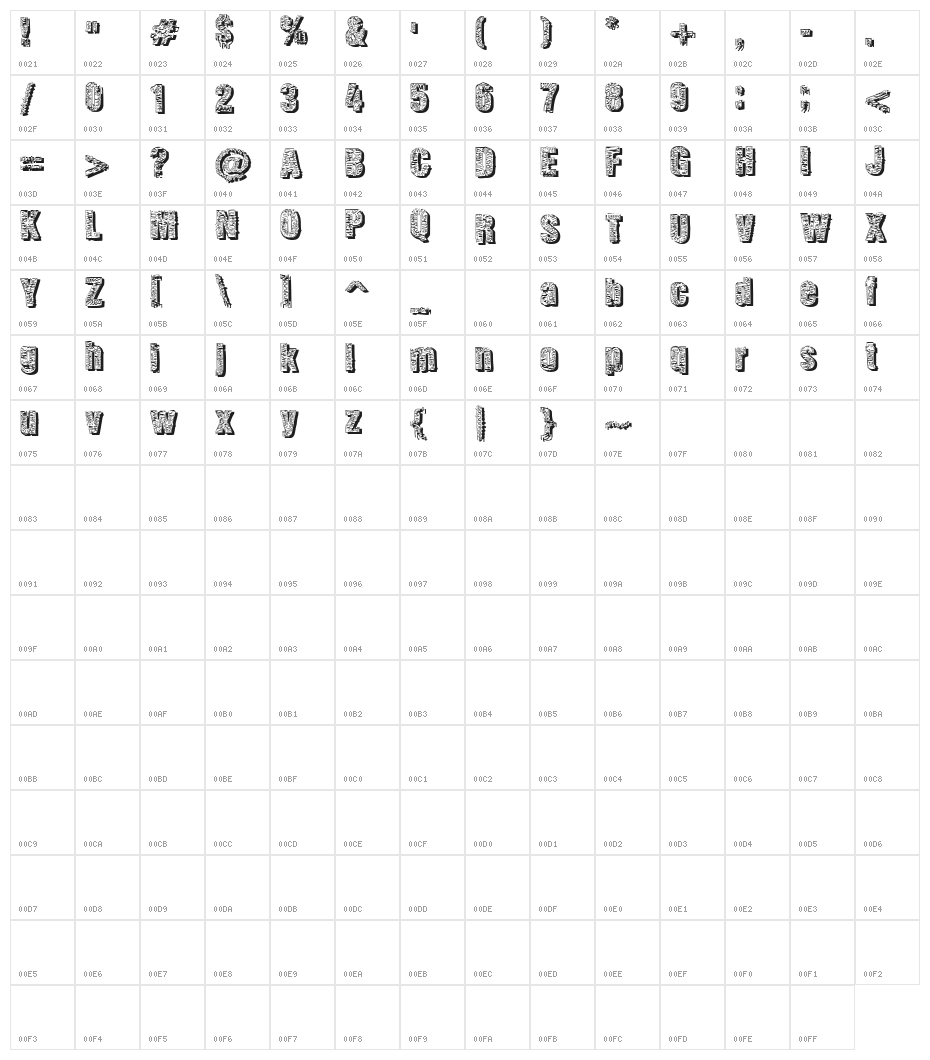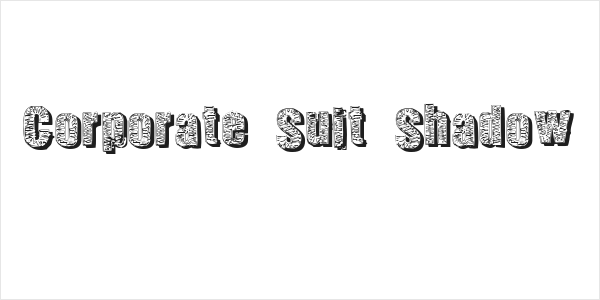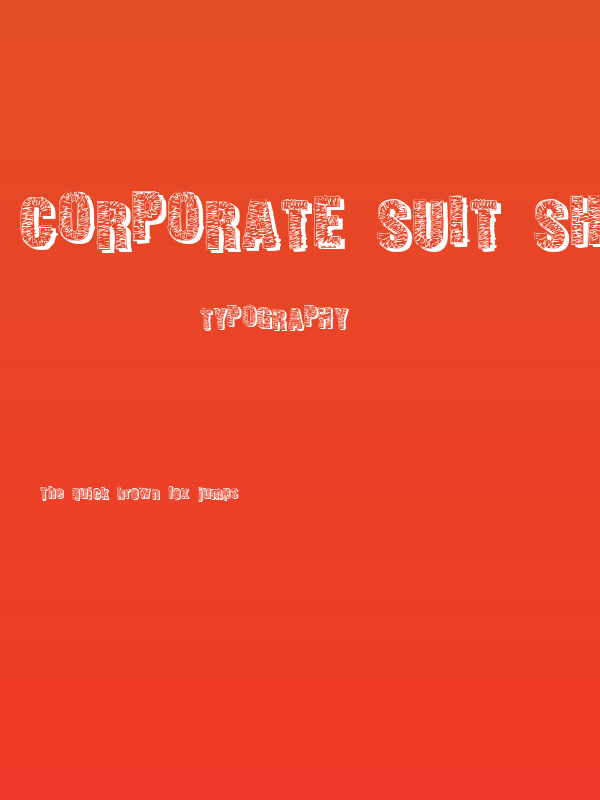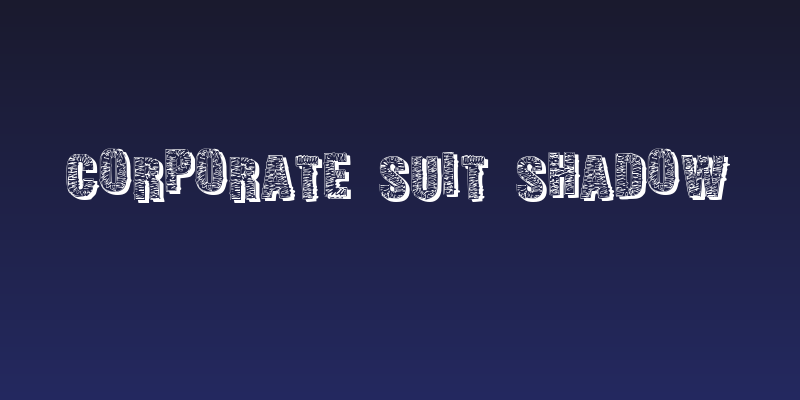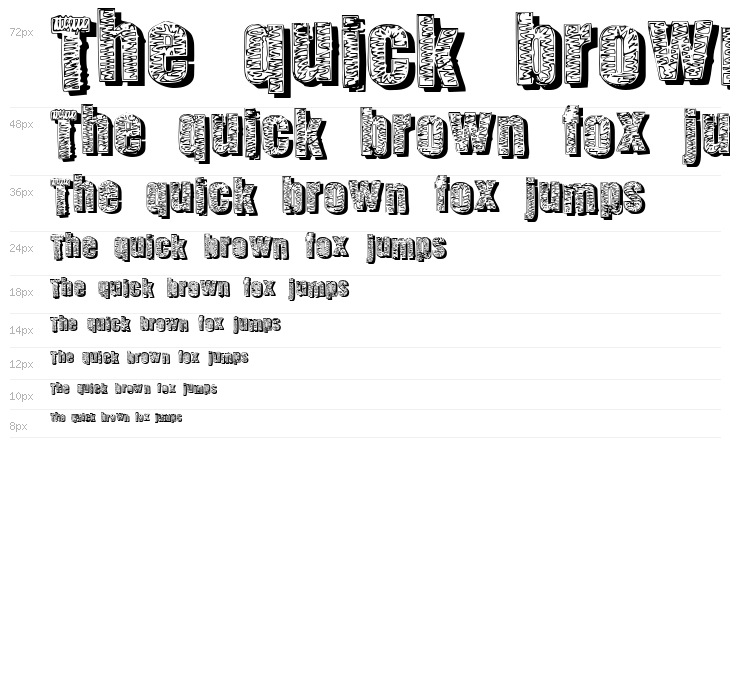
Corporate Suit Shadow Font
Corporate Suit Shadow Description
This font features a bold, decorative style with a unique shadow effect that gives each character a three-dimensional appearance. The letters are filled with a textured pattern that adds depth and visual interest. The uppercase and lowercase letters maintain a consistent design, with the shadow creating a sense of movement and dynamism. The numerals and special characters follow the same stylistic approach, ensuring uniformity across all glyphs. This font is eye-catching and ideal for projects that require a strong visual impact.